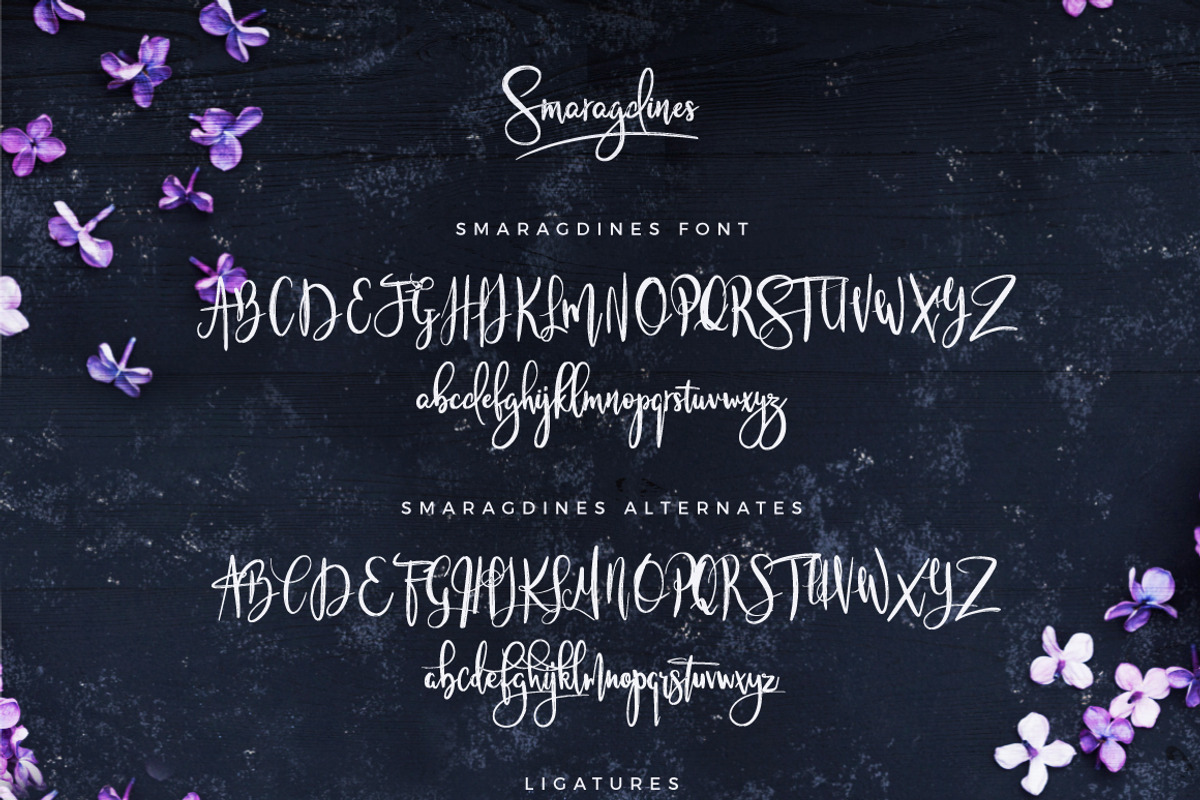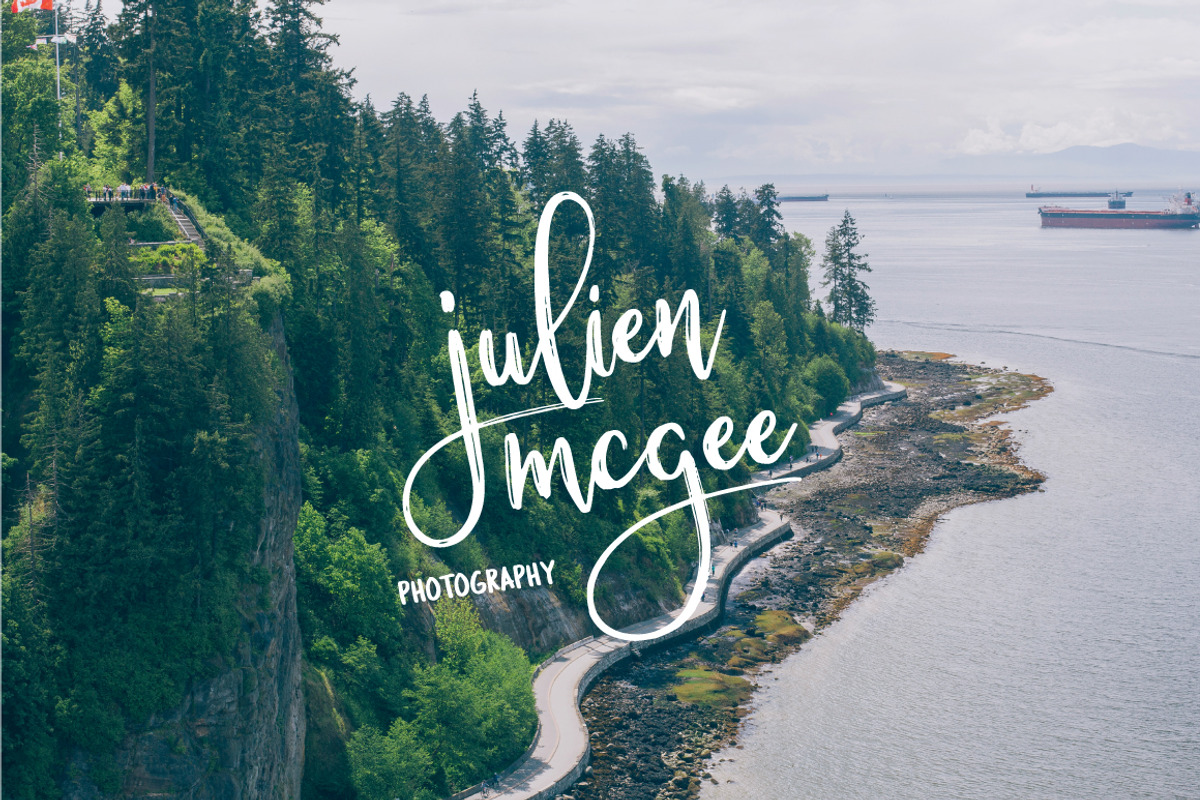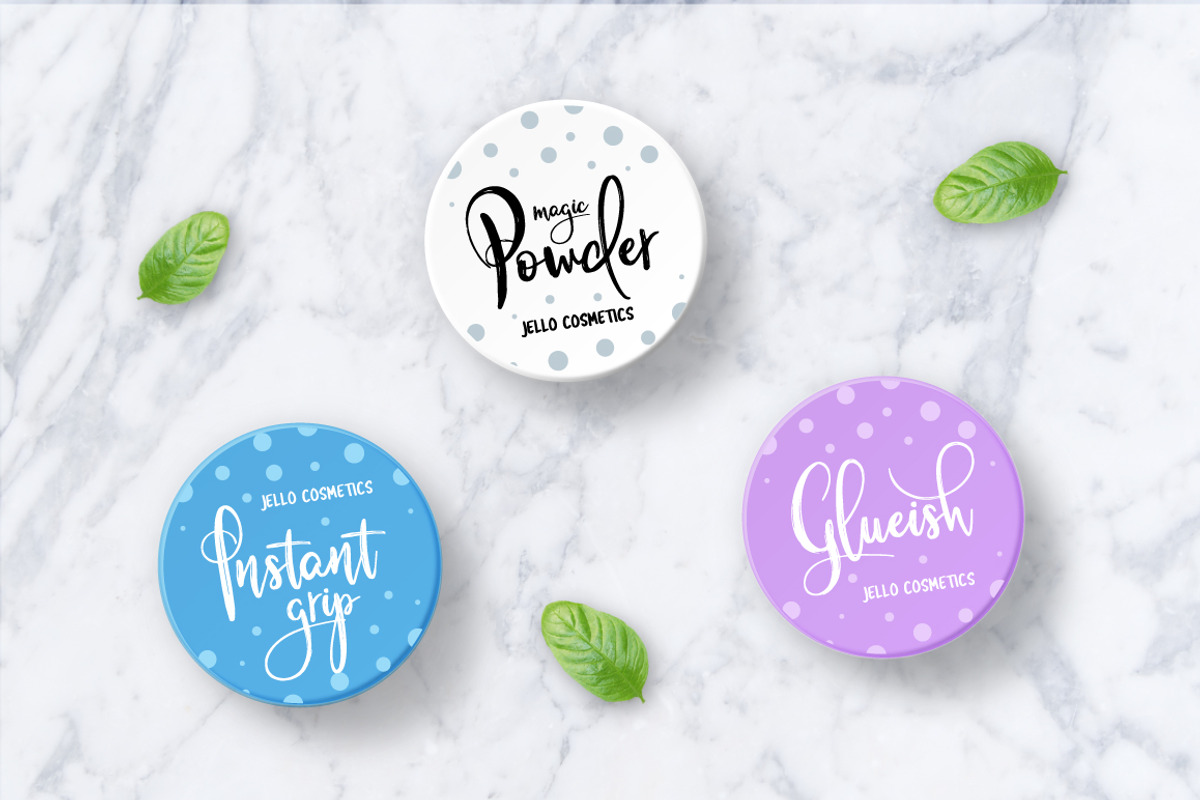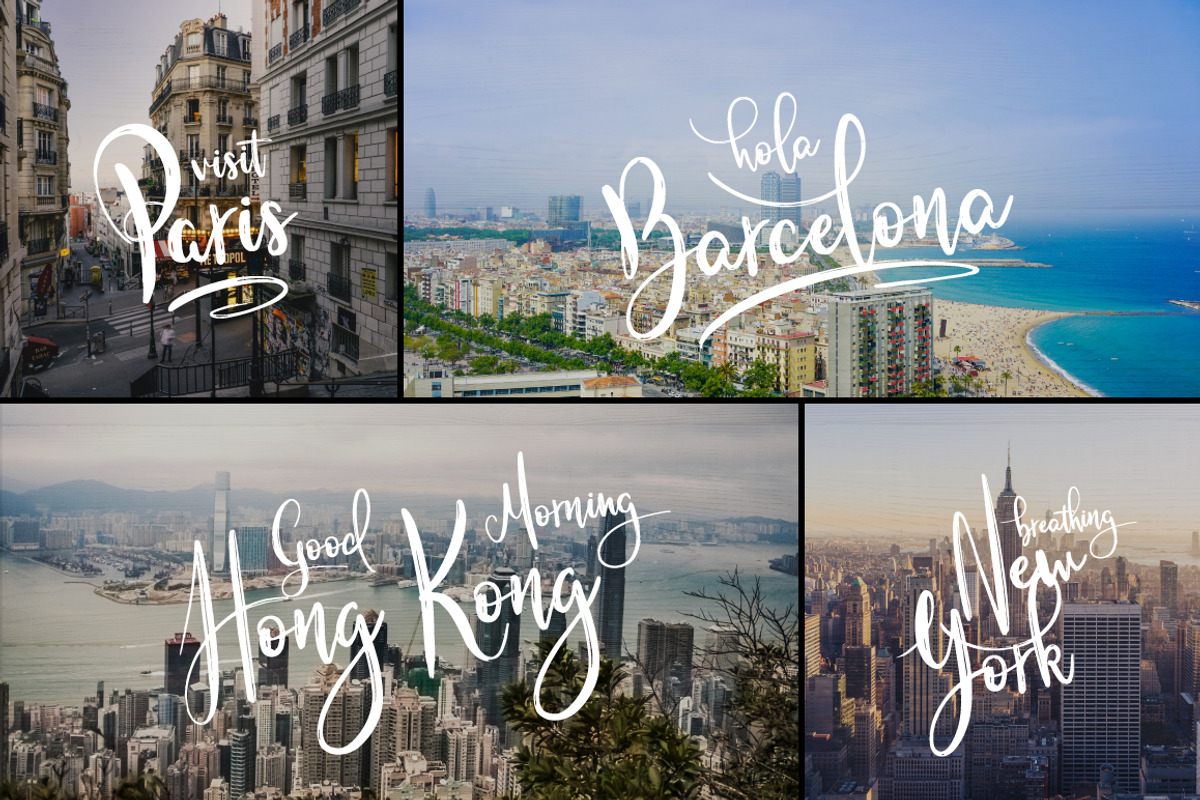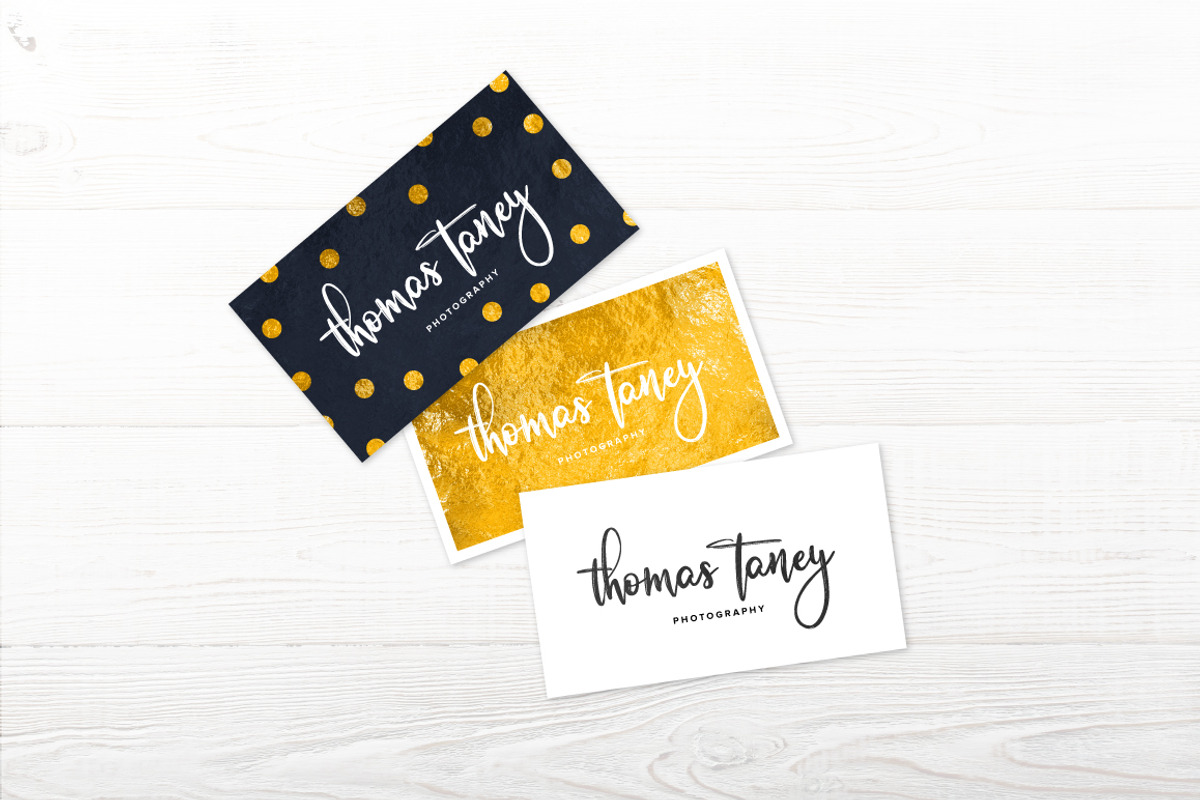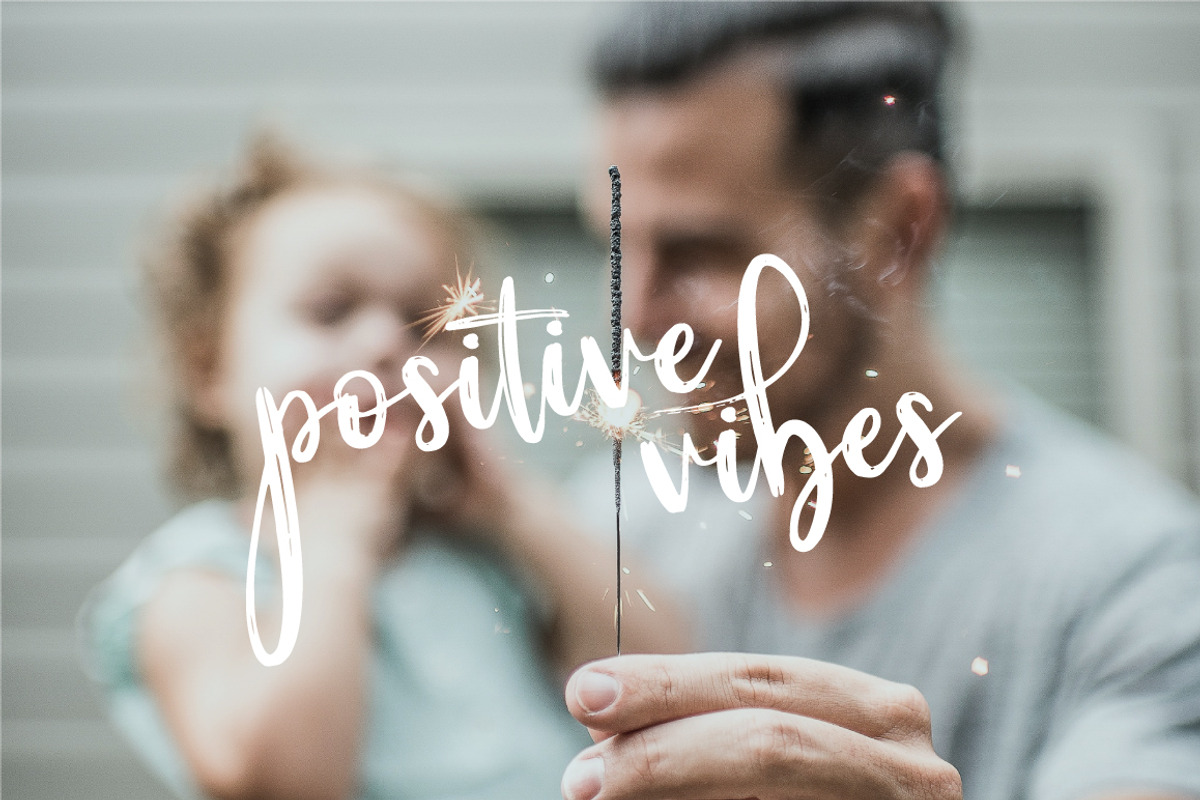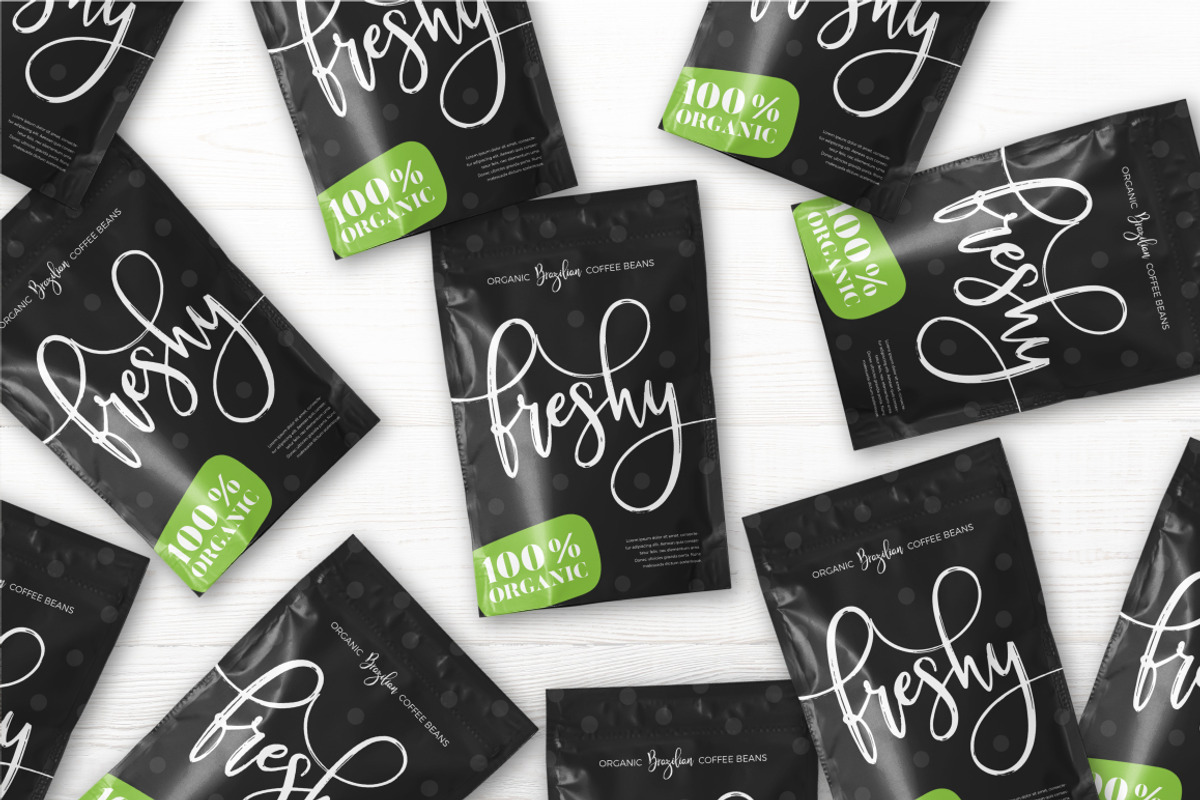
Smaragdines Font + Extras
Smaragdines Font + Extras by Mats-Peter Forss is a font selected for branding, posters, packaging, typography.
- Smaragdines - Handwritten upper and lowercase characters, numerals, punctuations and a wide language support.
- Extra ligatures for more complex letter-combinations like tt and ll.
- Smaragdines Alternates - Full alternates for upper and lowercase characters to make your design look more handwritten.
Why Smaragdines Font + Extras is worth a look
Smaragdines Font + Extras by Mats-Peter Forss fits naturally into Branding, posters, packaging, typography.